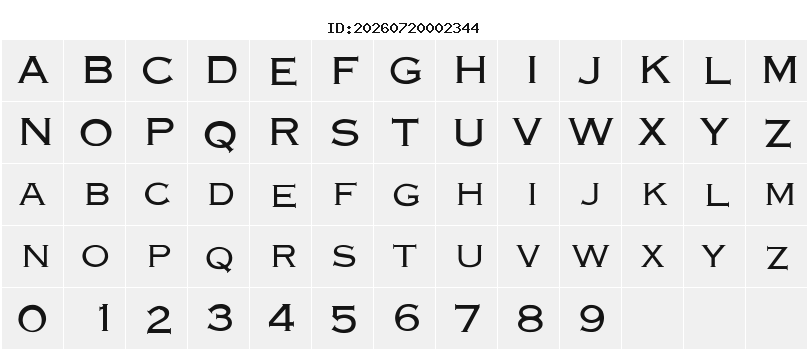
• Font Name: Engraver-Light
• Full Font Name: Engraver-Light
About Engraver-Light.ttf
Engraver-Light.ttf is a modern, elegant sans-serif font designed for ultimate readability and visual harmony. Perfect for branding, headlines, web design, and print materials.